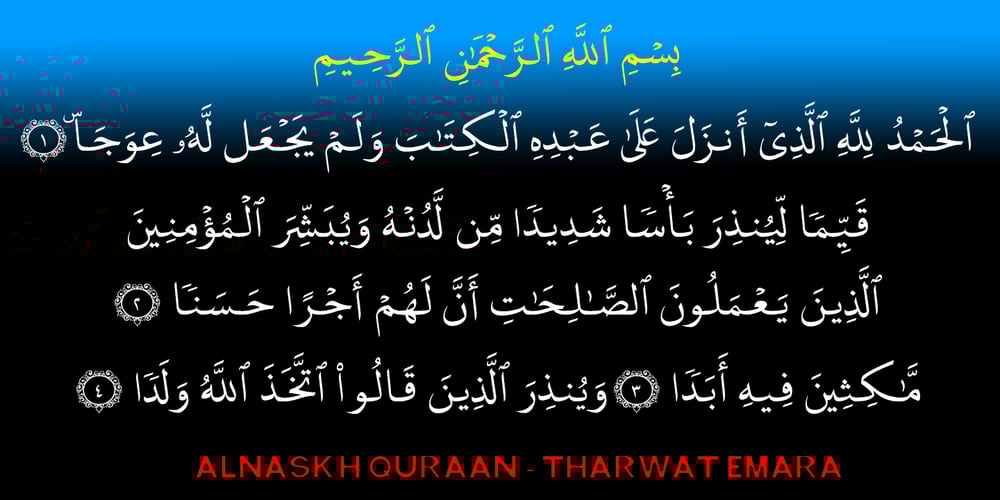
TE Alnaskh Quraan
TE Alnaskh Quraan font
TE Alnaskh Quraan Font Family was designed by Tharwat Mohamed Emara and published by Tharwat Emara. TE Alnaskh Quraan contains 1 styles and family package options. It is known as the Alnaskh Quraan Font for its extensive use in the copying and transmission of books because it helps the writer to write more quickly than any other font since the Islamic times and then Alnaskh Quraan font wrote the “Quran”And the advantages of Alnaskh Quraan font are clarifying the letters and show their beauty and splendor.